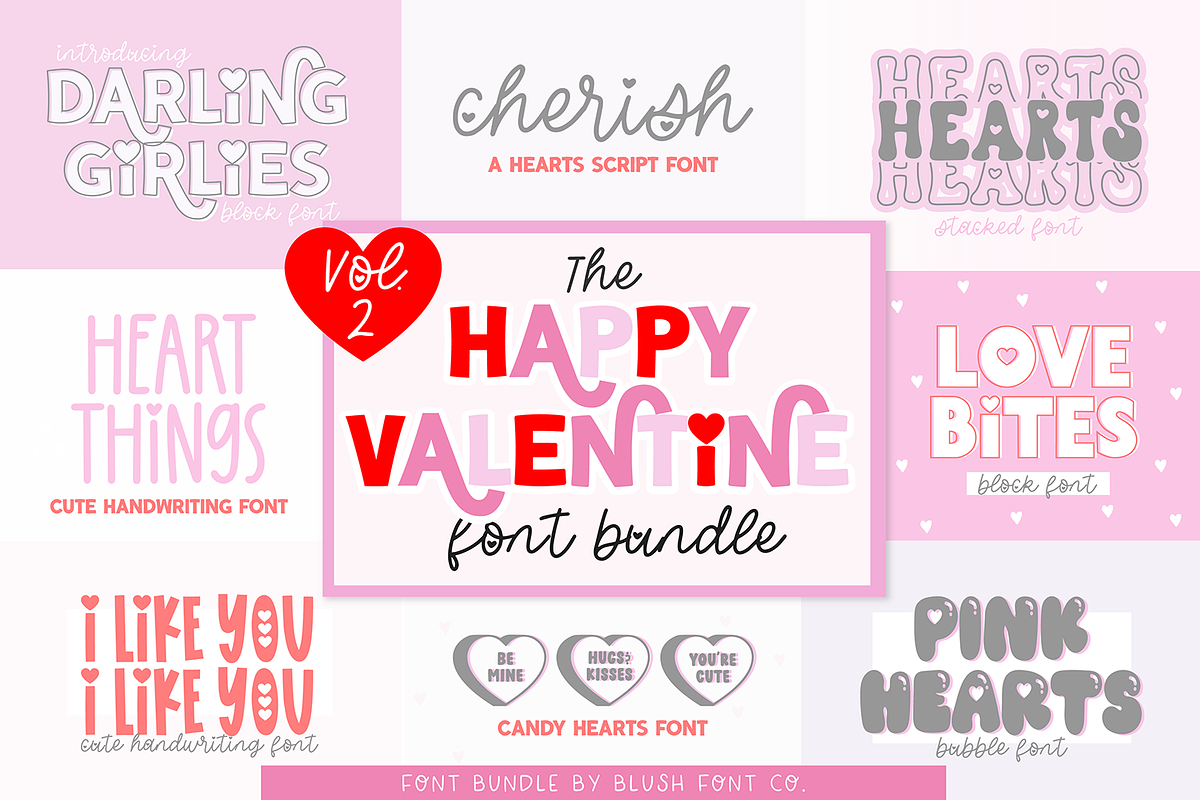
HAPPY VALENTINE Font Bundle V2 Free Download is the ultimate collection of romantic and playful typefaces, perfect for crafting heartfelt messages, love-themed designs, and charming holiday projects. This bundle includes a wide range of hand-lettered, script, and decorative fonts that evoke warmth, affection, and joy with every character.
Whether you're creating wedding invitations, Valentine's Day cards, or social media graphics, this bundle has the perfect font to bring your message to life. The variety ensures versatility, so you can mix and match styles to create visually engaging and emotionally rich compositions.
Designers appreciate the thoughtful curation of the HAPPY VALENTINE Font Bundle V2 Free Download, making it a must-have for any romantic design toolkit. Each font in the bundle is crafted with detail and personality, helping your designs resonate with authenticity.